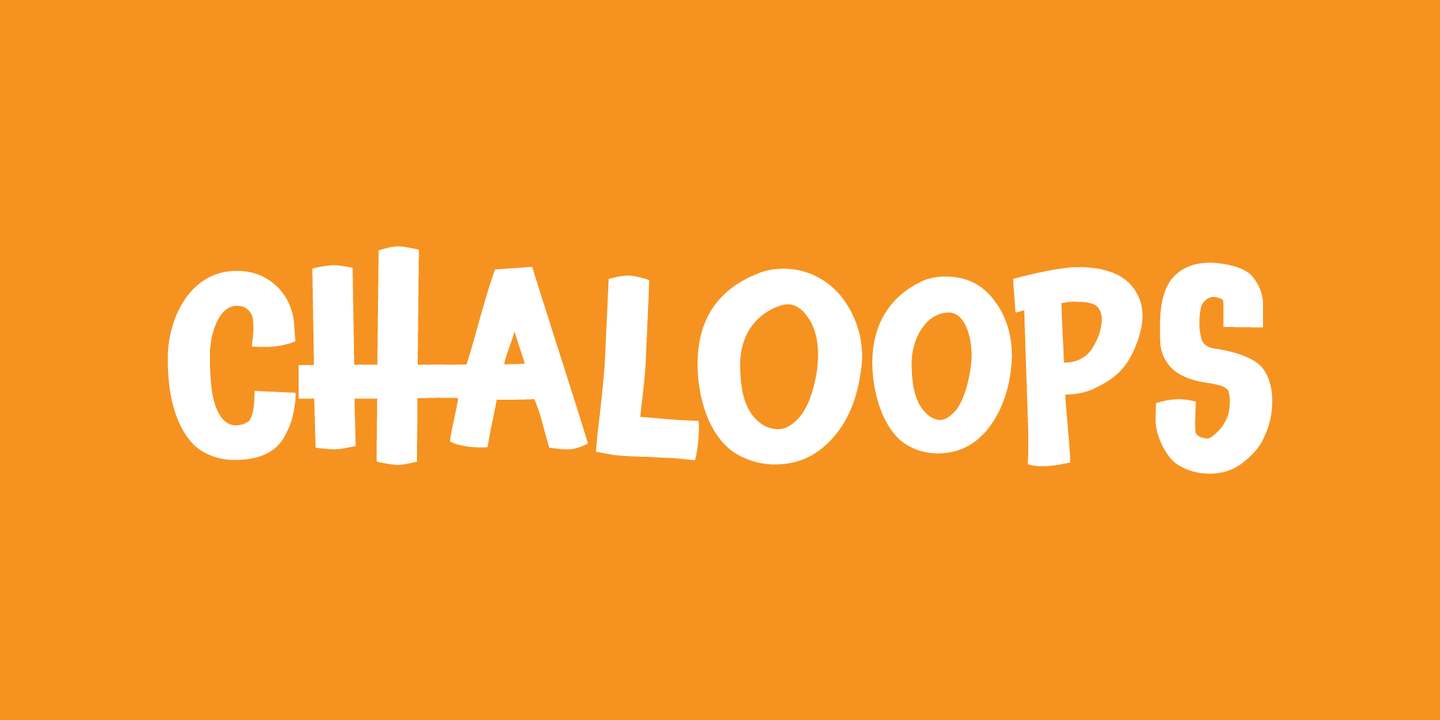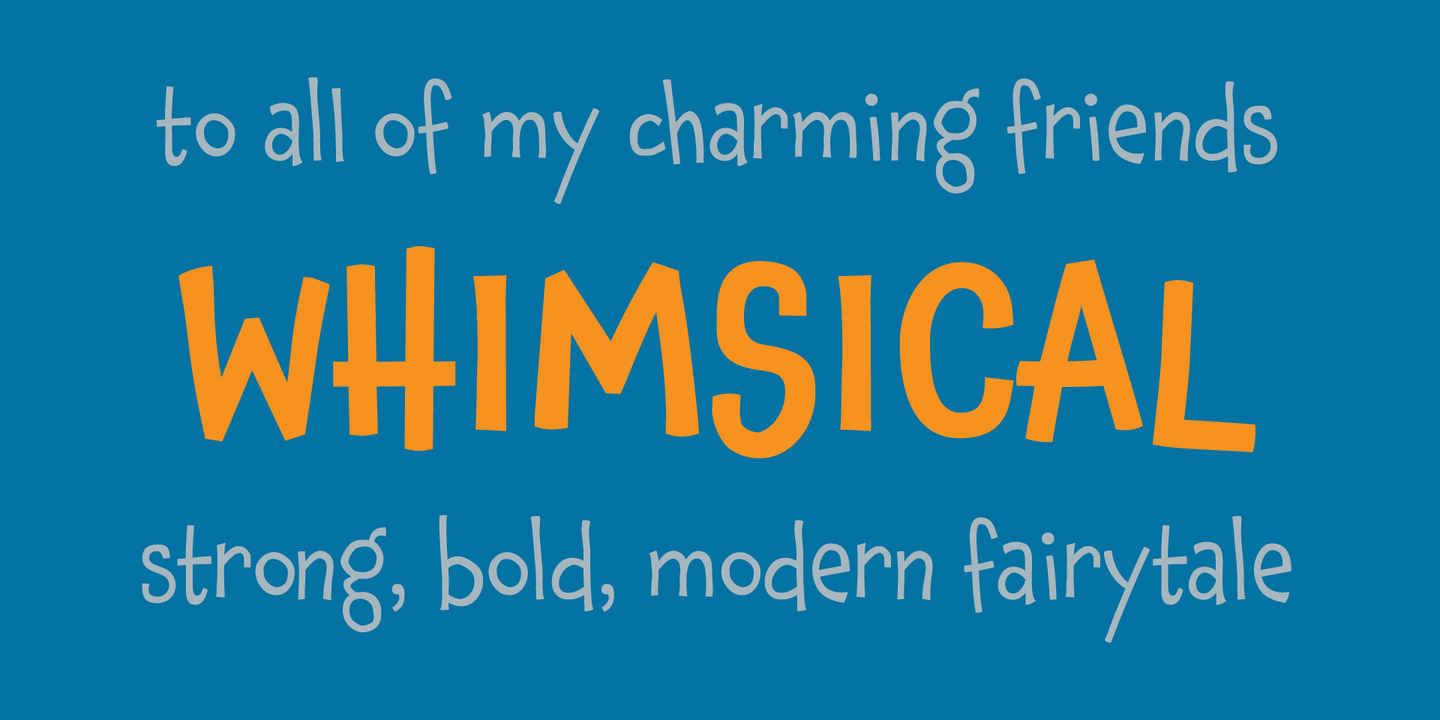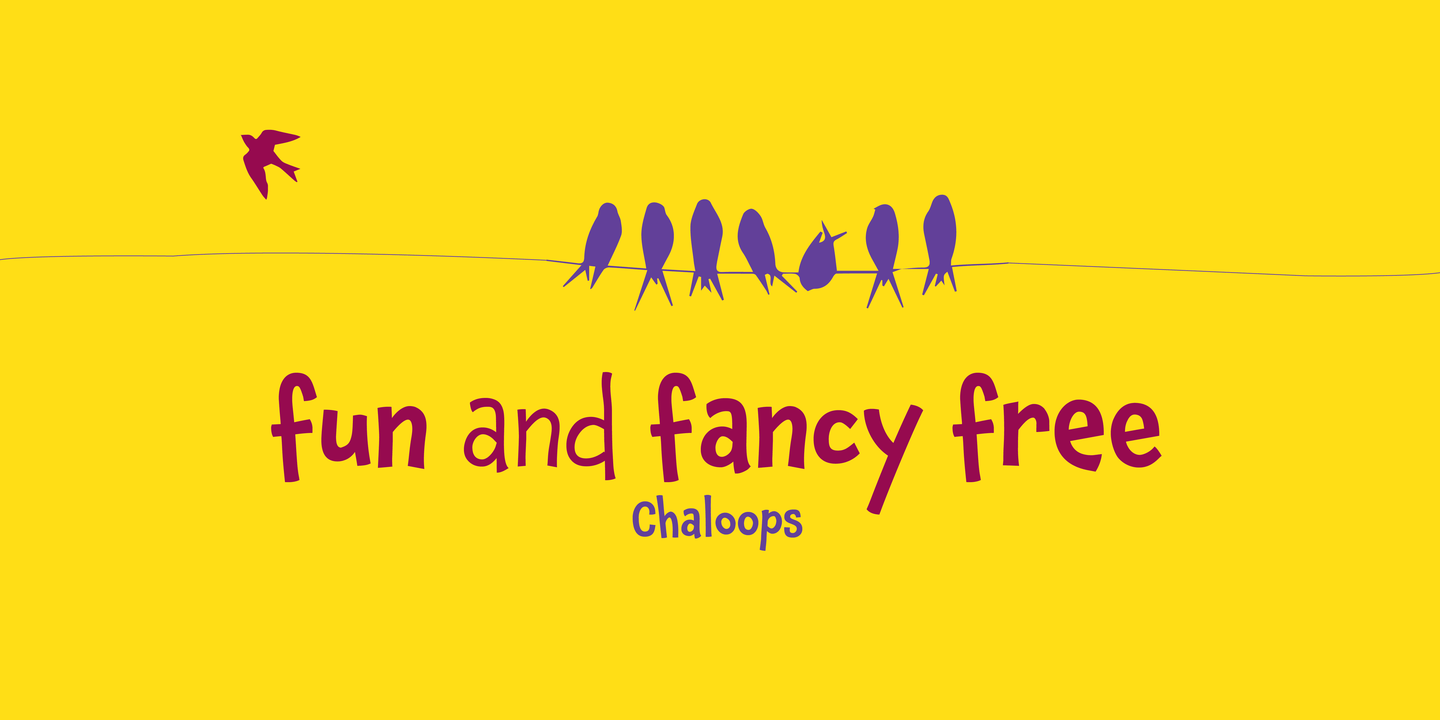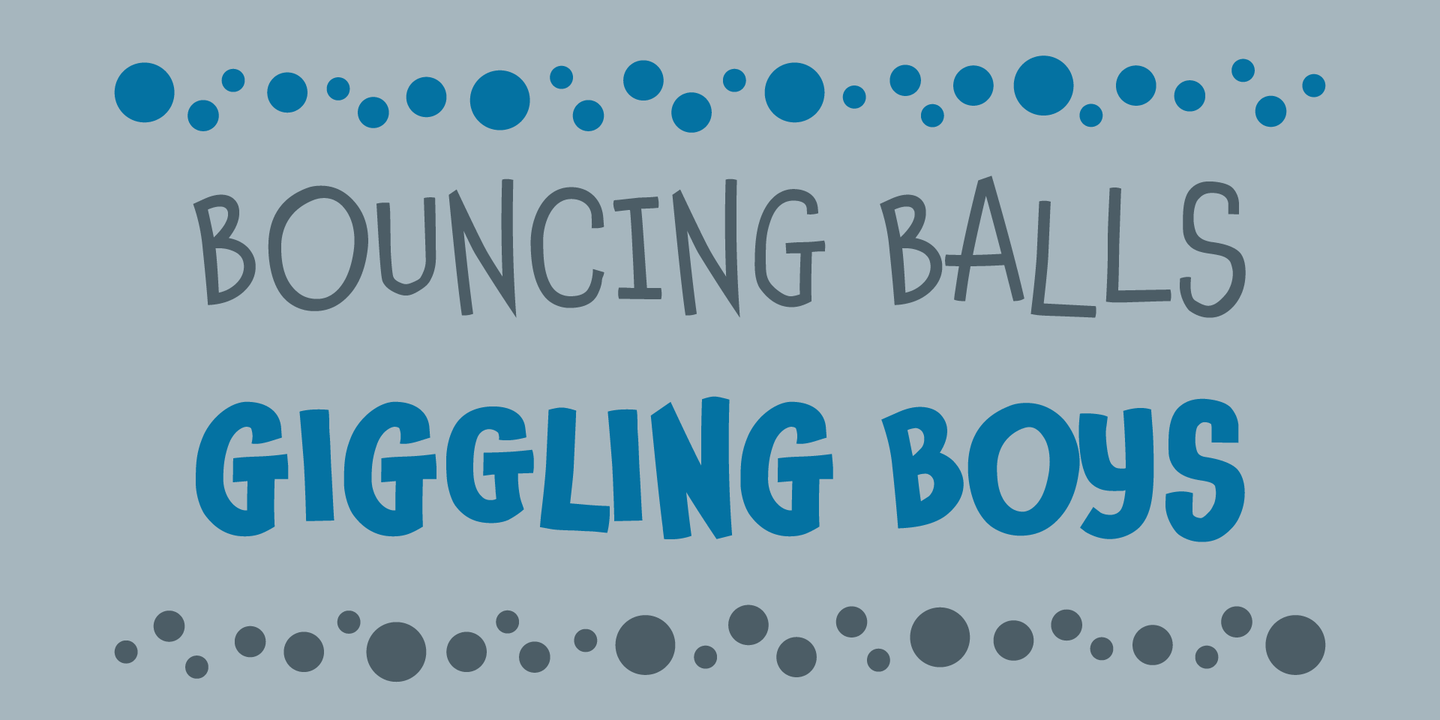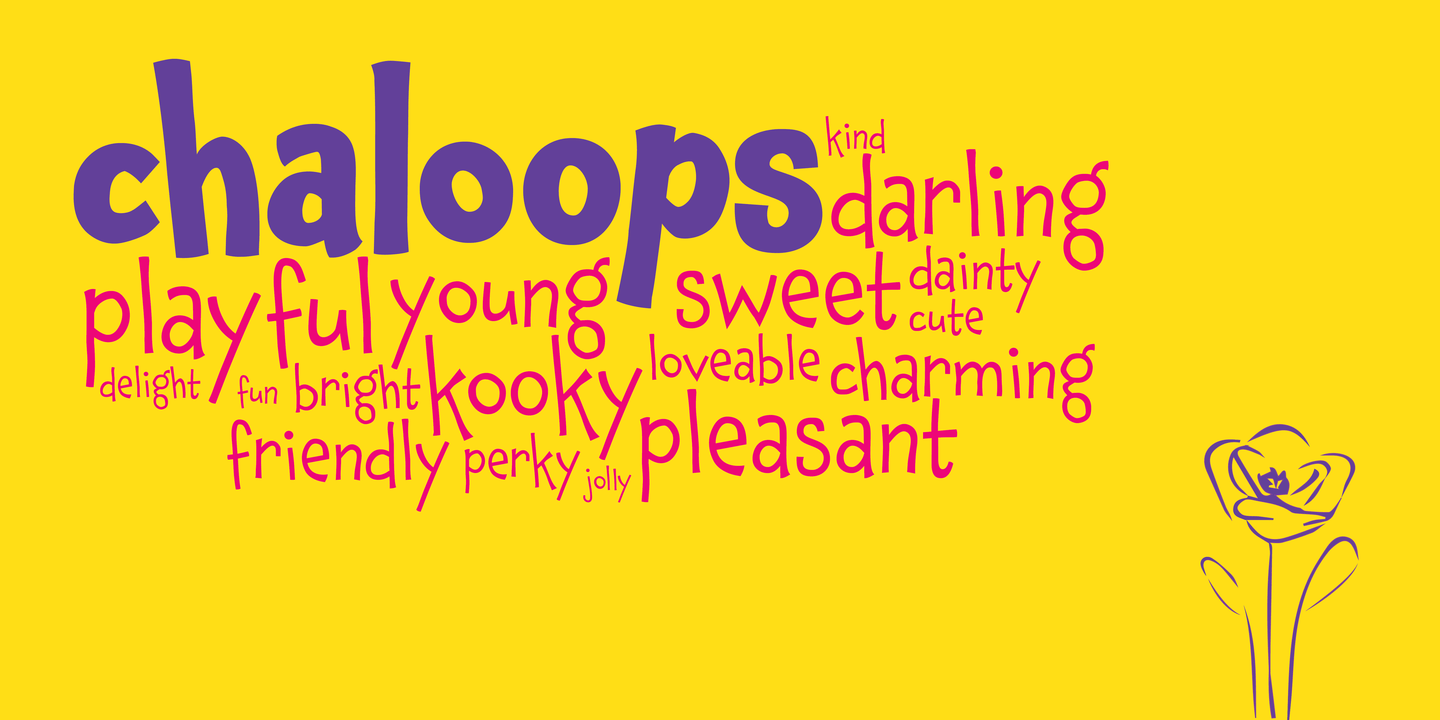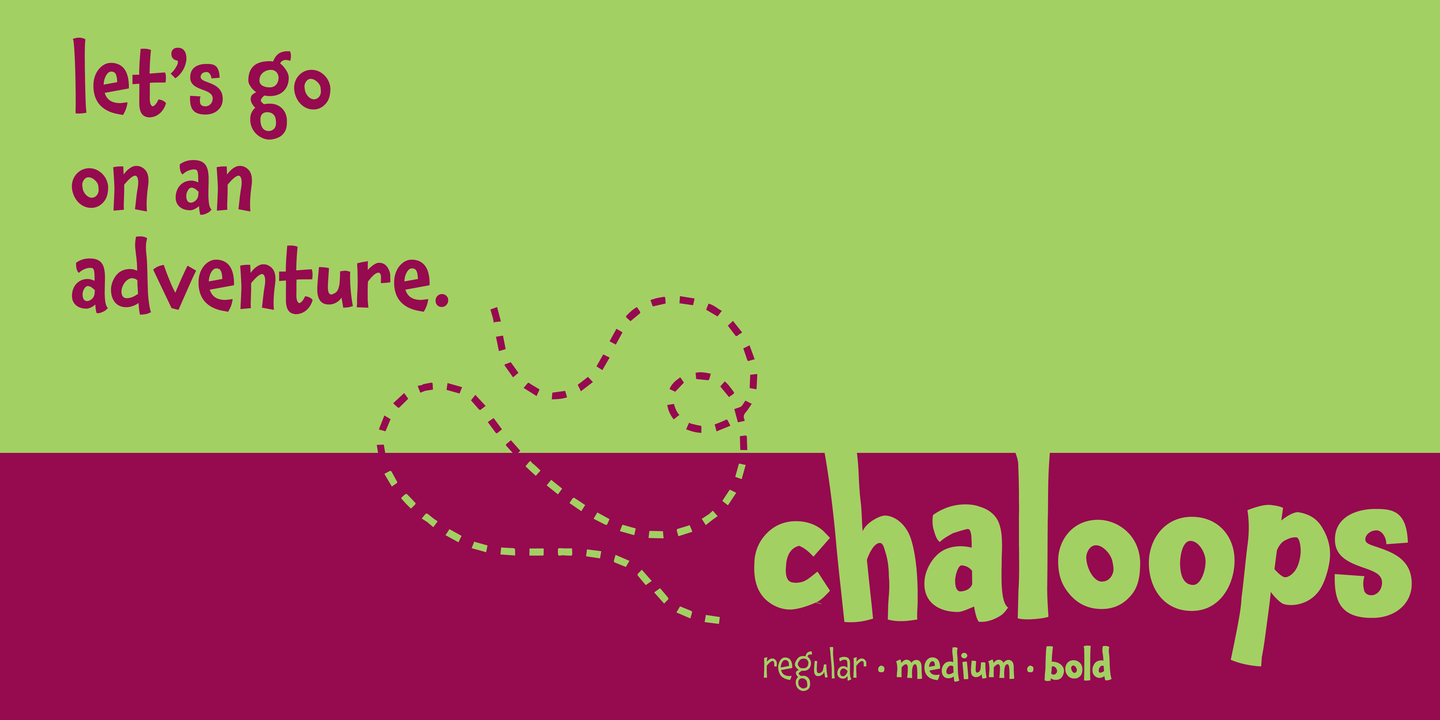
Chaloops
Font Family by Chank Co
Chaloops is a comic, hand drawn and kids font family. It's a playful and bouncy fun personality with a careless enthusiasm and boundless joy. It's especially useful around Easter and Chistmas and great at party invitations, birthday banners, picture books and sugary organic sweets. This typeface has three styles and was published by Chank Fonts.